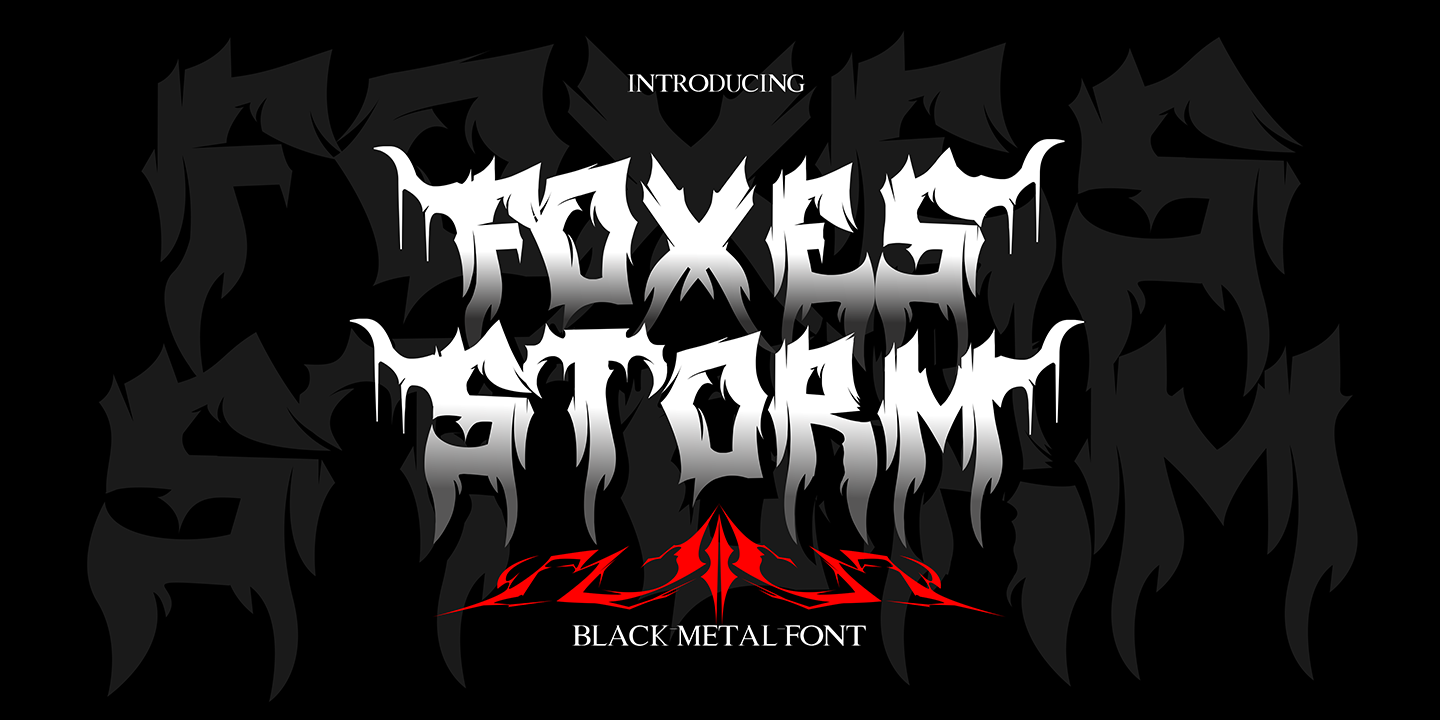
Foxes Storm Font excels in diverse design applications including wildlife conservation campaigns, nature documentary titles, outdoor adventure branding, storm chasing photography, wilderness survival materials, animal rights publications, dynamic weather service communications, and wild nature-themed projects that require untamed energy and natural storm sophistication.
What makes Foxes Storm Font truly exciting is its powerful fusion of cunning intelligence and elemental force that captures the essence of nature's most adaptable predators moving through turbulent weather systems with grace, determination, and survival instincts honed by millennia of evolution. This dynamic typeface features bold letterforms with subtle angular elements that evoke images of red foxes navigating through windswept landscapes, their keen intelligence allowing them to thrive even during nature's most challenging storms. The font's wild character reflects the resilience and adaptability of wildlife, making it perfect for brands that want to communicate natural intelligence, survival excellence, and the untamed spirit that defines both cunning predators and powerful weather phenomena. Its stormy appearance creates immediate associations with wild nature and elemental power.
The Foxes Storm Font family includes multiple weights and natural variations designed to enhance wildlife communication. The collection features Light, Regular, Medium, Bold, and Black weights, each maintaining the font's characteristic wild appeal while offering different levels of natural presence. The family also includes alternate characters with varying storm effects, dynamic elements that simulate wind and movement, and stylistic sets that create powerful text arrangements reflecting the energy of natural forces. Additional features include contextual alternates and wild ligatures that enhance the authentic, untamed appearance.
Wildlife and nature professionals consistently choose Foxes Storm Font Free Download for projects requiring authentic natural character and wild credibility. The font's elemental nature makes it particularly effective for conservation organizations, outdoor adventure companies, and nature-focused brands targeting audiences who appreciate wildlife intelligence and natural power. Its excellent readability across various applications ensures effective communication while maintaining the distinctive wild character that conveys natural authority and environmental awareness.
The advanced OpenType capabilities of Foxes Storm Font include contextual alternates, stylistic sets, and comprehensive character support that accommodates wildlife terminology and natural expressions while preserving the font's authentic stormy character. The technical precision ensures consistent wild appearance across different nature applications and environmental platforms.
For creative professionals seeking a typeface that embodies genuine wildlife heritage and natural storm sophistication, Foxes Storm Font offers unparalleled wild appeal and elemental elegance. Its ability to convey natural intelligence while maintaining functional communication makes it invaluable for conservation groups, outdoor brands, and wildlife organizations. The font's distinctive stormy character ensures memorable natural impact across all applications, creating powerful visual identity systems that celebrate the cunning intelligence of foxes and the awesome power of natural storms that shape wilderness landscapes and test the survival skills of nature's most adaptable creatures.